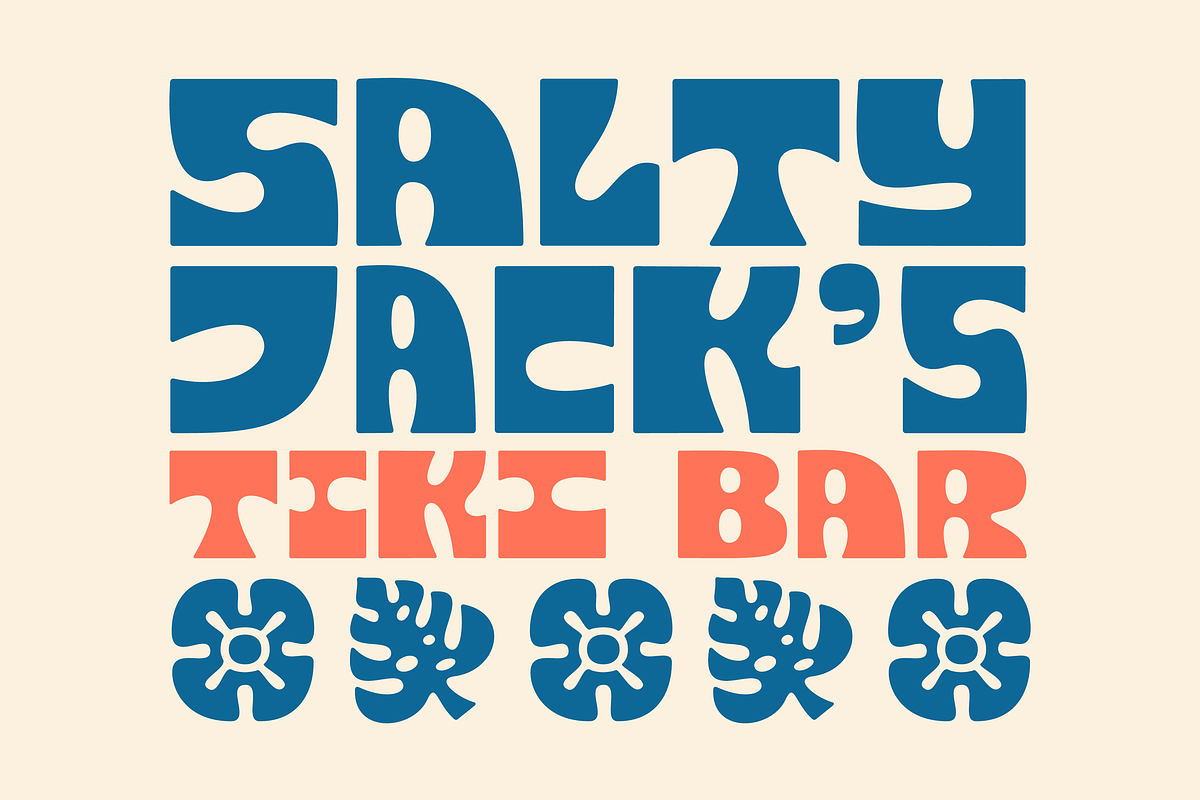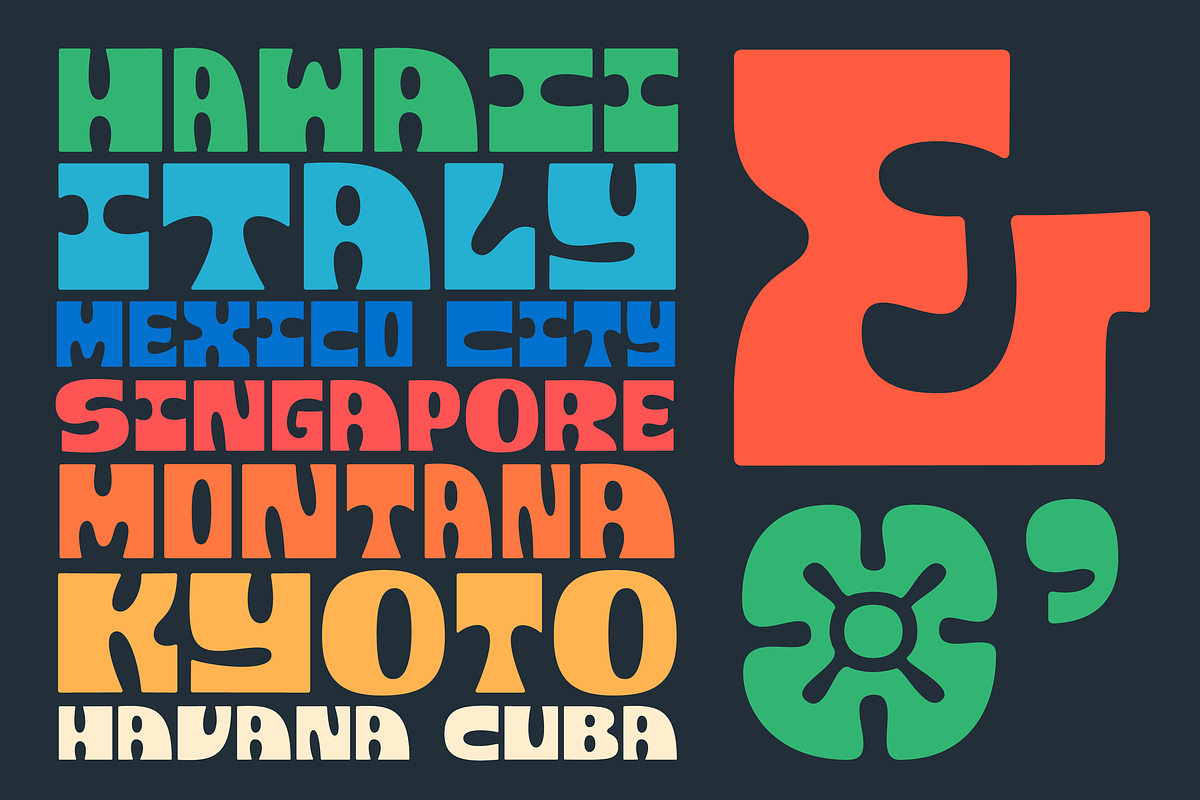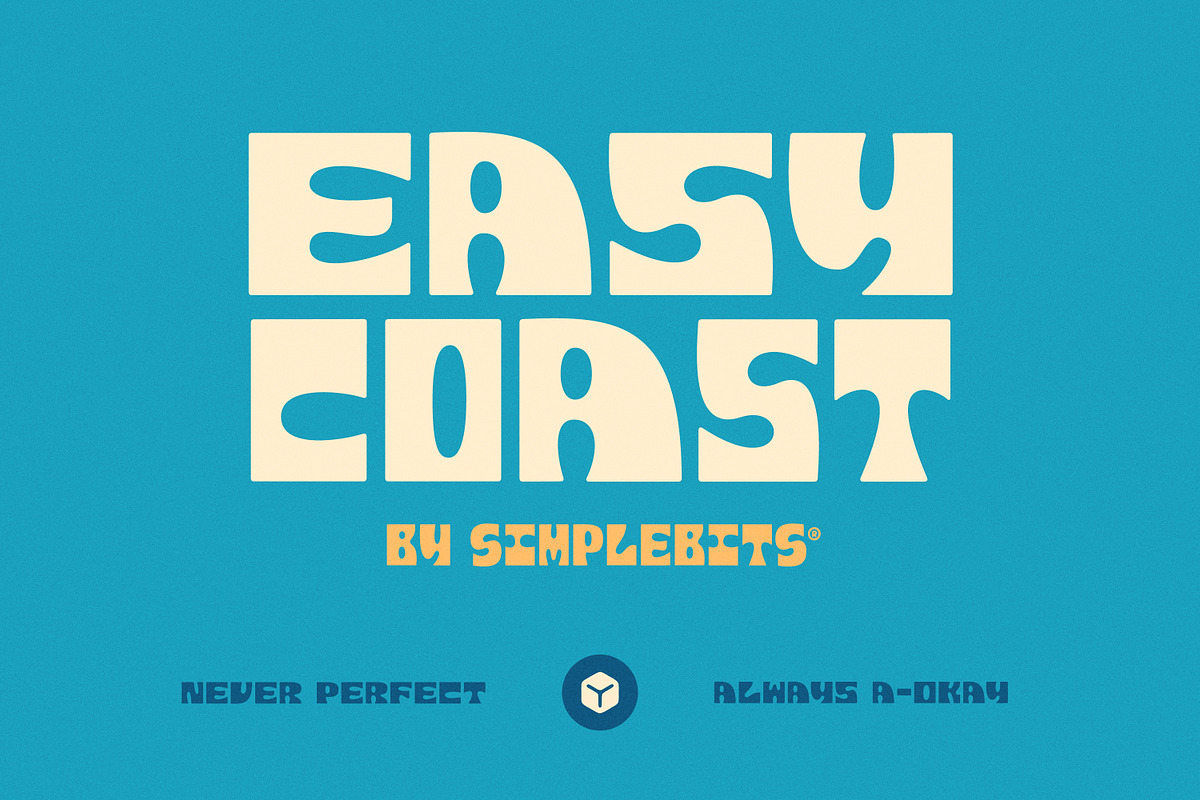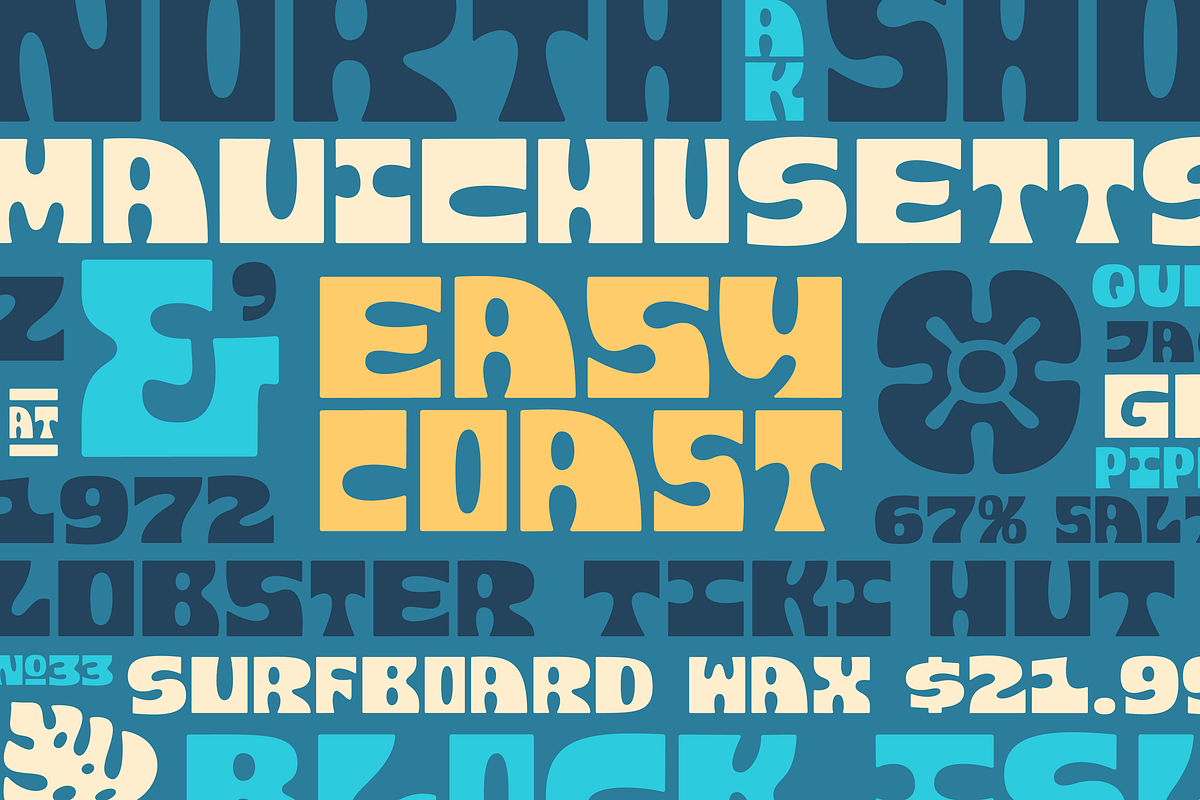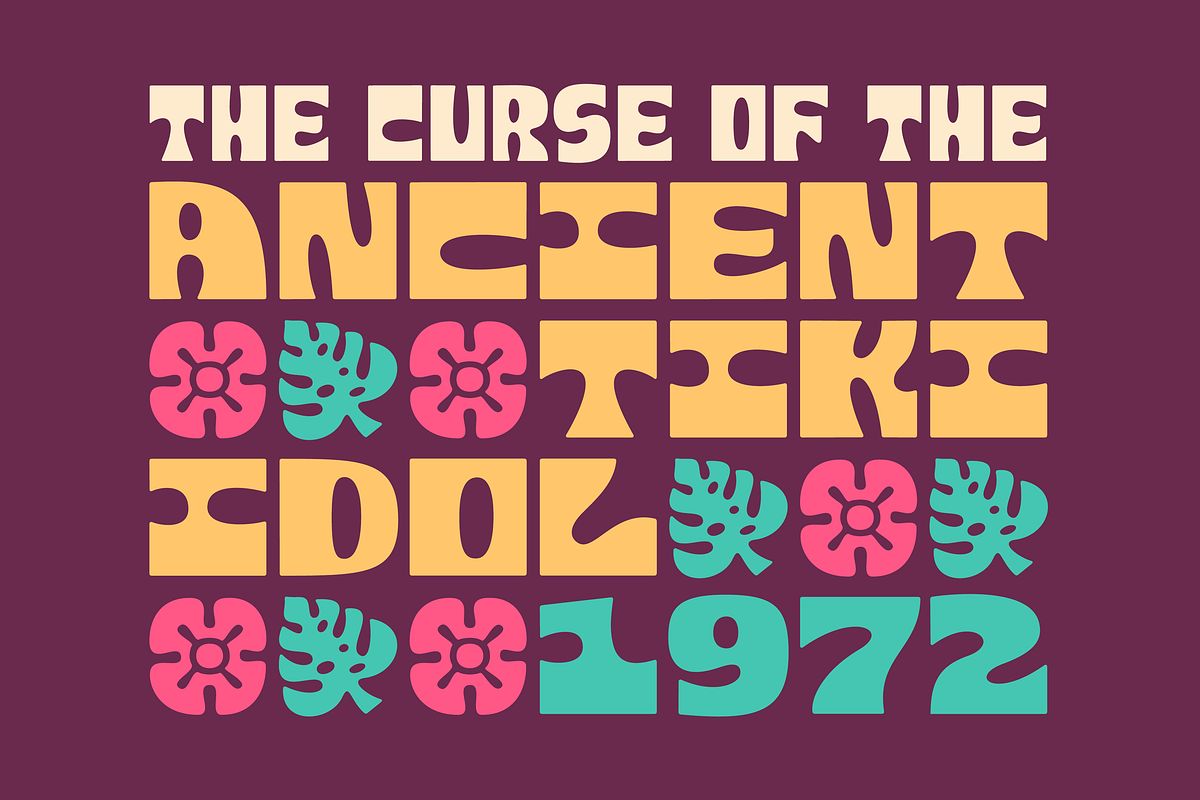
Easy Coast — Wood block font
Inspired by saltwater, waves, and Greg Brady's wipeout... Introducing Easy Coast. A display typeface with roots in wood blocks that are carved into retro, groovy, flowing shapes. We even had wood type versions created for this and we're now down a learning-how-to-letterpress rabbit hole.
Two widths included: Regular and Condensed. The font was designed with mixing and matching those widths together to create neat lockups. Easy Coast is all-caps with letters, numbers, basic punctuation, alternate characters and a few symbols. Take it easy!